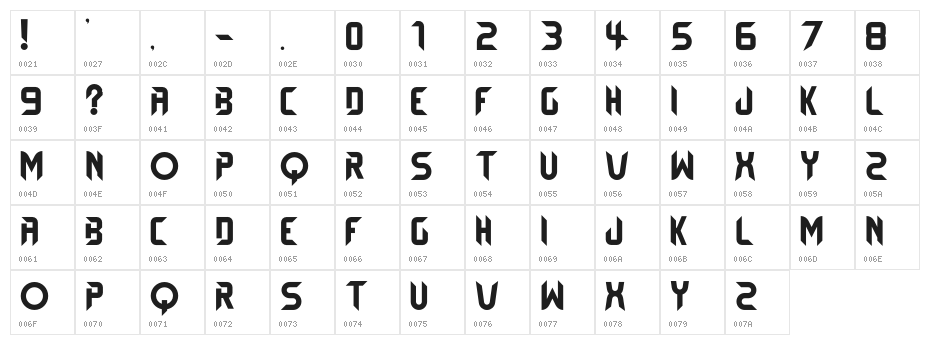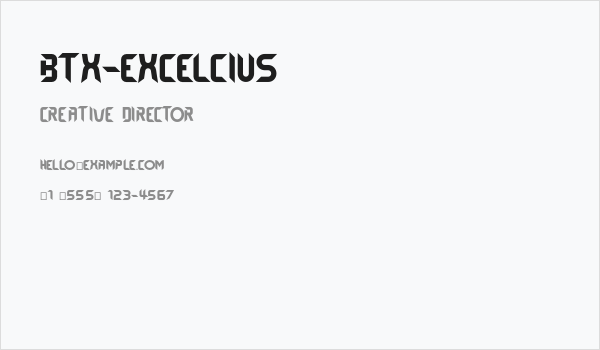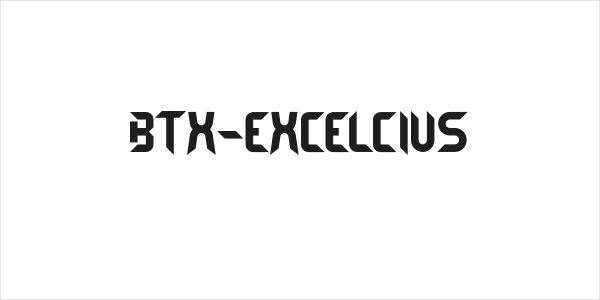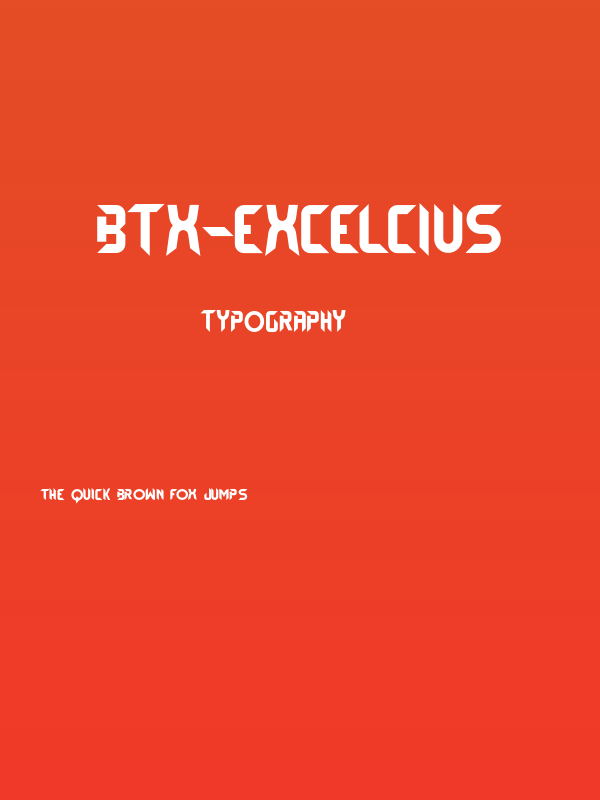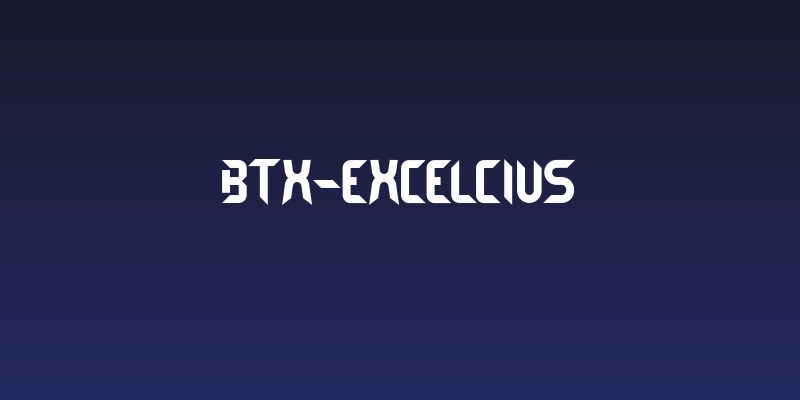
BTX-EXCELCIUS Font
BTX-EXCELCIUS Description
This font features a bold, geometric design with sharp angles and a futuristic aesthetic. The uppercase letters are striking, with a consistent height and width that create a uniform appearance. The lowercase letters maintain the same boldness, with unique angular cuts that add a dynamic flair. Numbers are equally bold and geometric, ensuring readability while maintaining the font's distinct style. Special characters are designed to match the overall angular theme, providing a cohesive look across all elements. The font's strong presence makes it ideal for impactful designs.
| Proposed Projects | Ideal for sci-fi themed projects, video game titles, tech branding, and modern posters. |